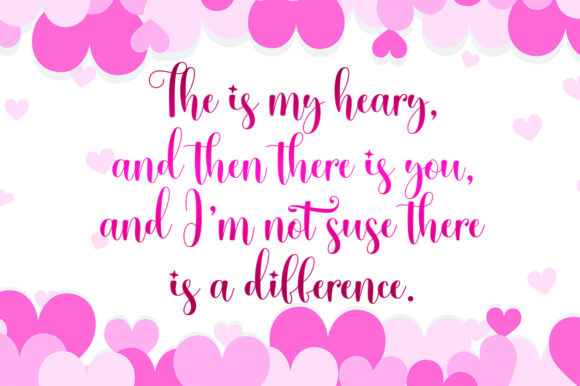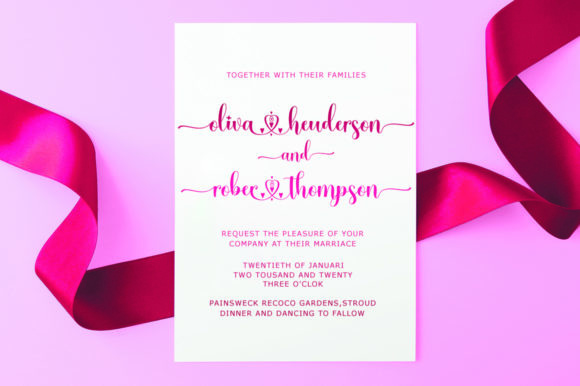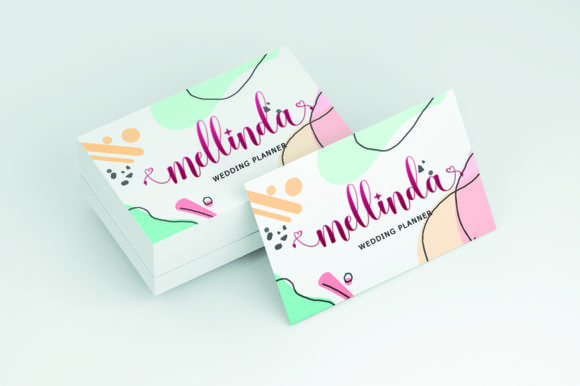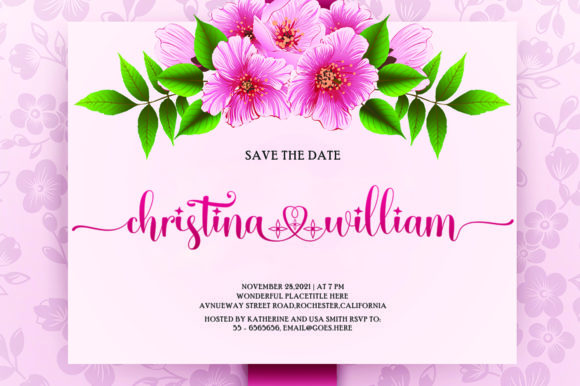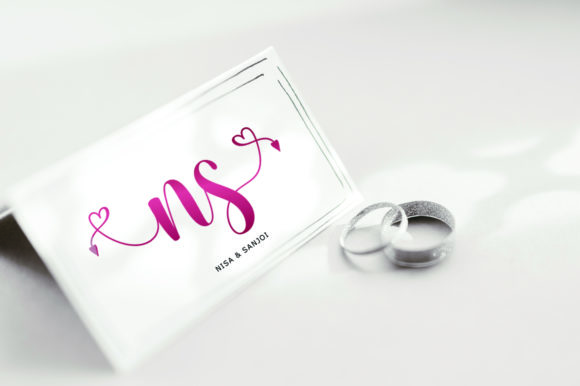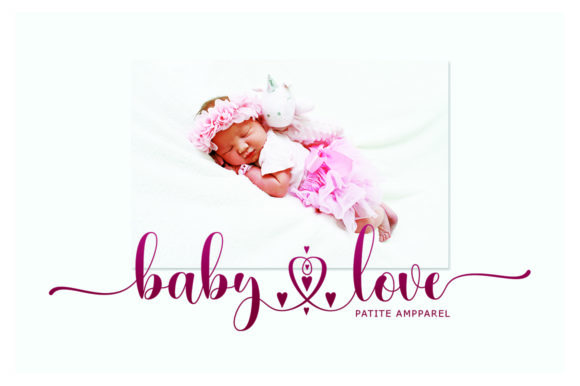
Introduction to Hello Belliya Font
As a designer, there’s nothing quite like the thrill of creating something new and beautiful. It’s that moment when all the pieces come together, and your design truly shines. For me, that moment often starts with the perfect font – one that adds a touch of magic to my creative project. Recently, I discovered the Hello Belliya Font, and I couldn’t wait to share it with fellow designers.
This lovely handwritten font exudes a romantic feel, making it the perfect addition to any design. With its high-quality aesthetic and transparent background, it’s easy to see why Hello Belliya Font has become a go-to design resource for many creatives. Whether you’re working on a special project or just want to add a little something extra to your designs, this font is sure to impress.
But what really sets Hello Belliya Font apart is its PUA encoding, which allows for easy access to all the glyphs and swashes. This means you can download it for free and start using it in your creative projects right away – a valuable resource for any designer looking to elevate their designs to the next level.
Key Features of Hello Belliya Font
- The Hello Belliya Font is a high-quality design resource ideal for creative projects requiring a unique touch.
- This font features a transparent background, allowing for seamless integration into any design.
- Hello Belliya Font is available in multiple sizes, including 48, 64, and 72 points, catering to different design needs.
- This font boasts a high resolution of 300 DPI, ensuring crisp and clear text output.
- Hello Belliya Font’s unique, cursive design makes it perfect for creating eye-catching titles, headings, and other design elements.
Honest Review: Hello Belliya Font
I recently came across the Hello Belliya Font, and I must say it’s a great addition to any designer’s toolkit. The font is perfect for creating a high-quality design resource that can elevate a creative project. What I like most about this font is its versatility and ability to be used in various contexts, from logos to brochures.
Here are some of the things that work well for me: ✨
- Customizable: The font can be customized to fit your specific design needs, making it a great choice for designers who want to create unique and eye-catching designs.
- Transparency: The font’s transparent background makes it easy to layer and combine with other design elements.
However, there are some limitations to consider: ⚠️
- Not suitable for body text: The font is best used for headings and titles, as it can be difficult to read in body text.
- Limited character set: The font only includes a limited character set, which may not be suitable for languages that require a wider range of characters.
Overall, I’m impressed with the Hello Belliya Font and would definitely recommend it to designers who are looking for a high-quality, versatile font for their creative projects.
The Hello Belliya Font is ideal for:
- Branding and logo design.
- Social media graphics and advertising.